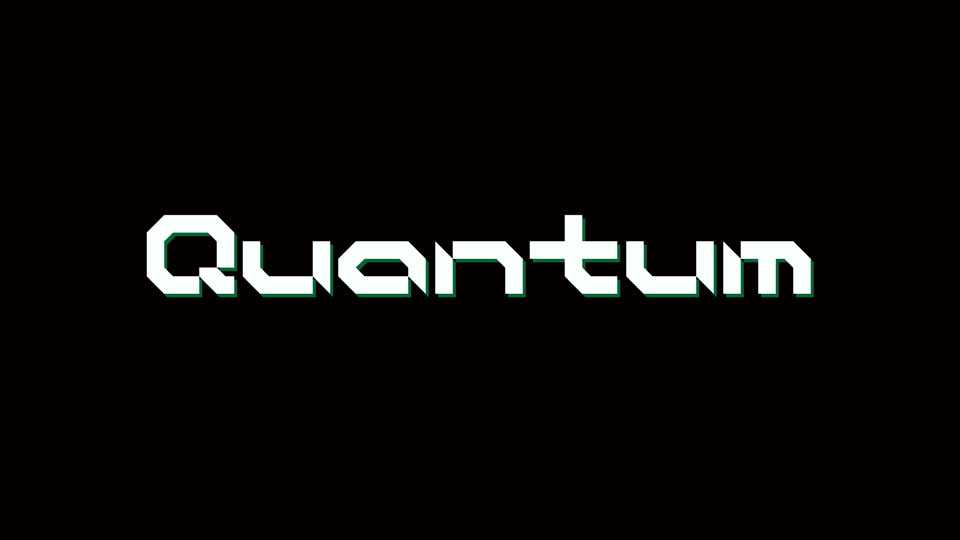
Download Quantum font, a visual display typeface designed to convey one cyberpunk future out of many. Made on a 9×10 pixel grid out with the vision of the cyberpunk future according to the 90s and a desire to capture the “spirit” of the original Sony PlayStation.
Designer: Alexandros Tsitlakidis